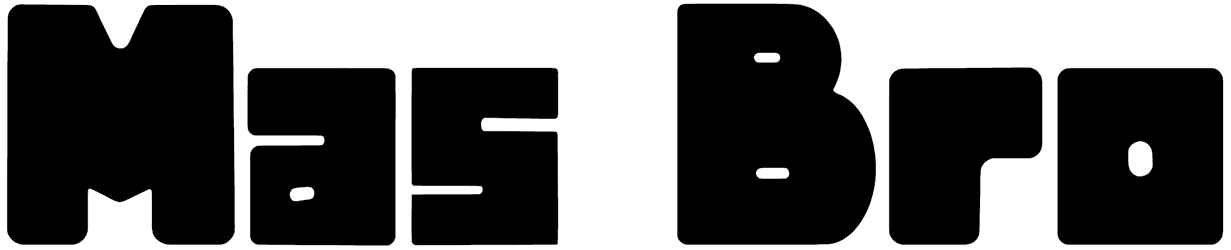
Mas Bro Font
The Mas Bro font will have a great place in the geometric and puzzle font collection with its bold and cube characters.
A strong and fun cartoon font like this can be used for the posters of children’s animations, birthday greetings, and many brands that produce baby clothes for both girls and boys. Do not forget that this block font can easily be included in the list of most-used fonts.